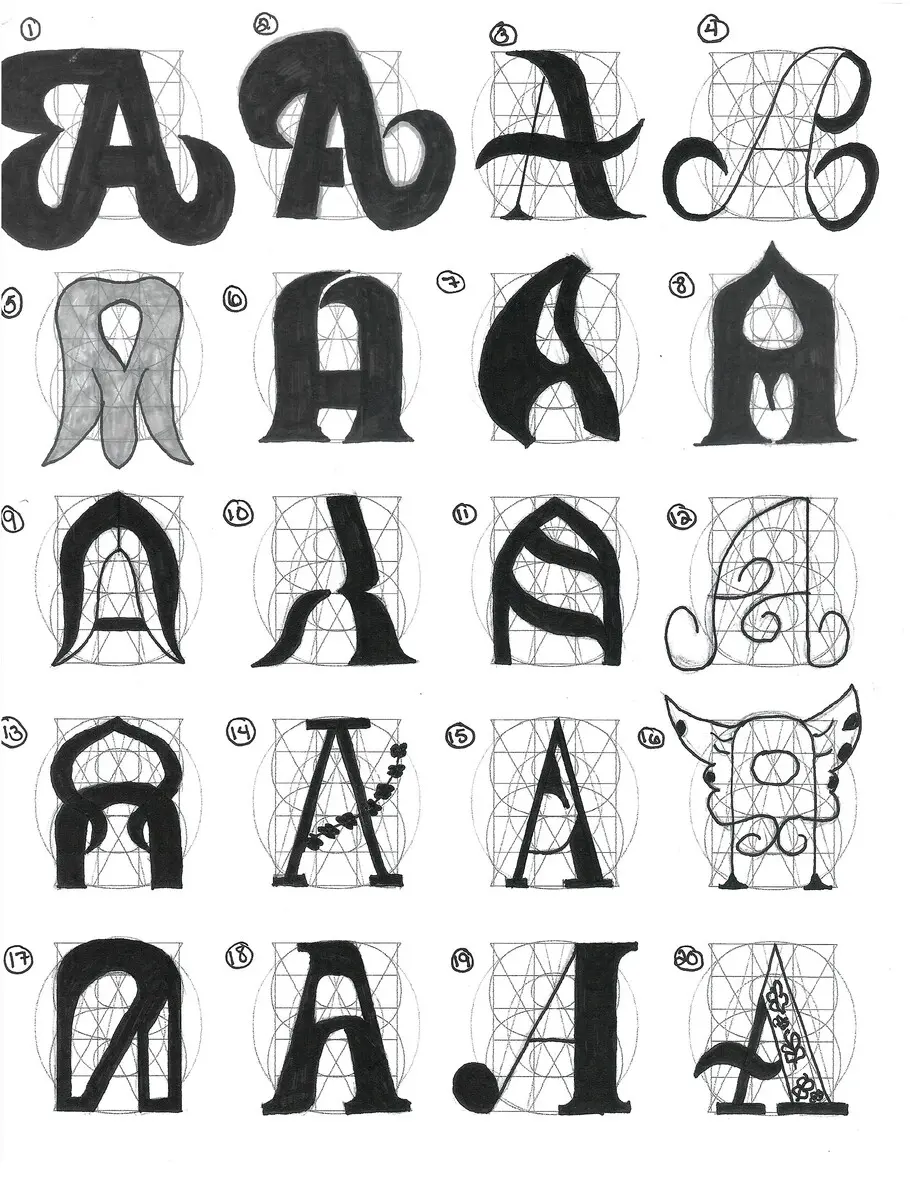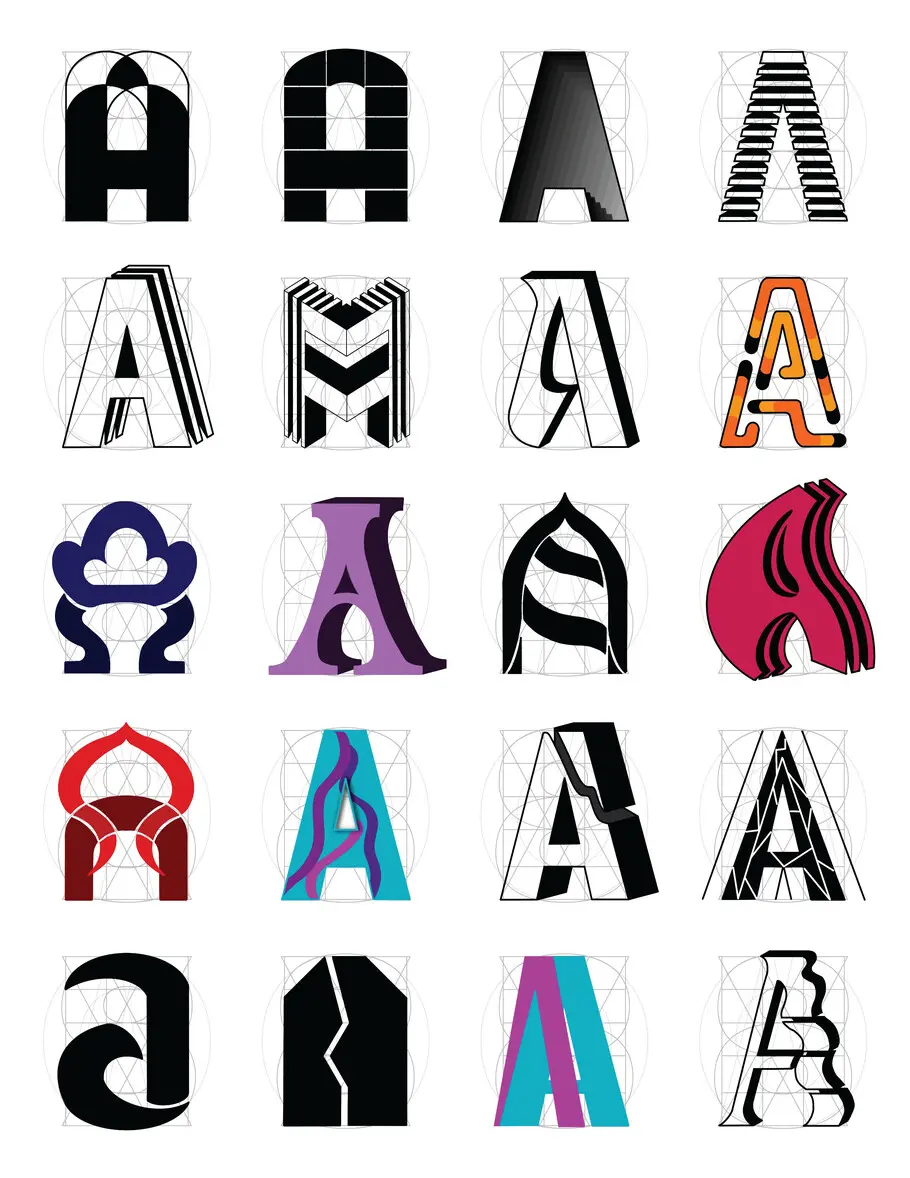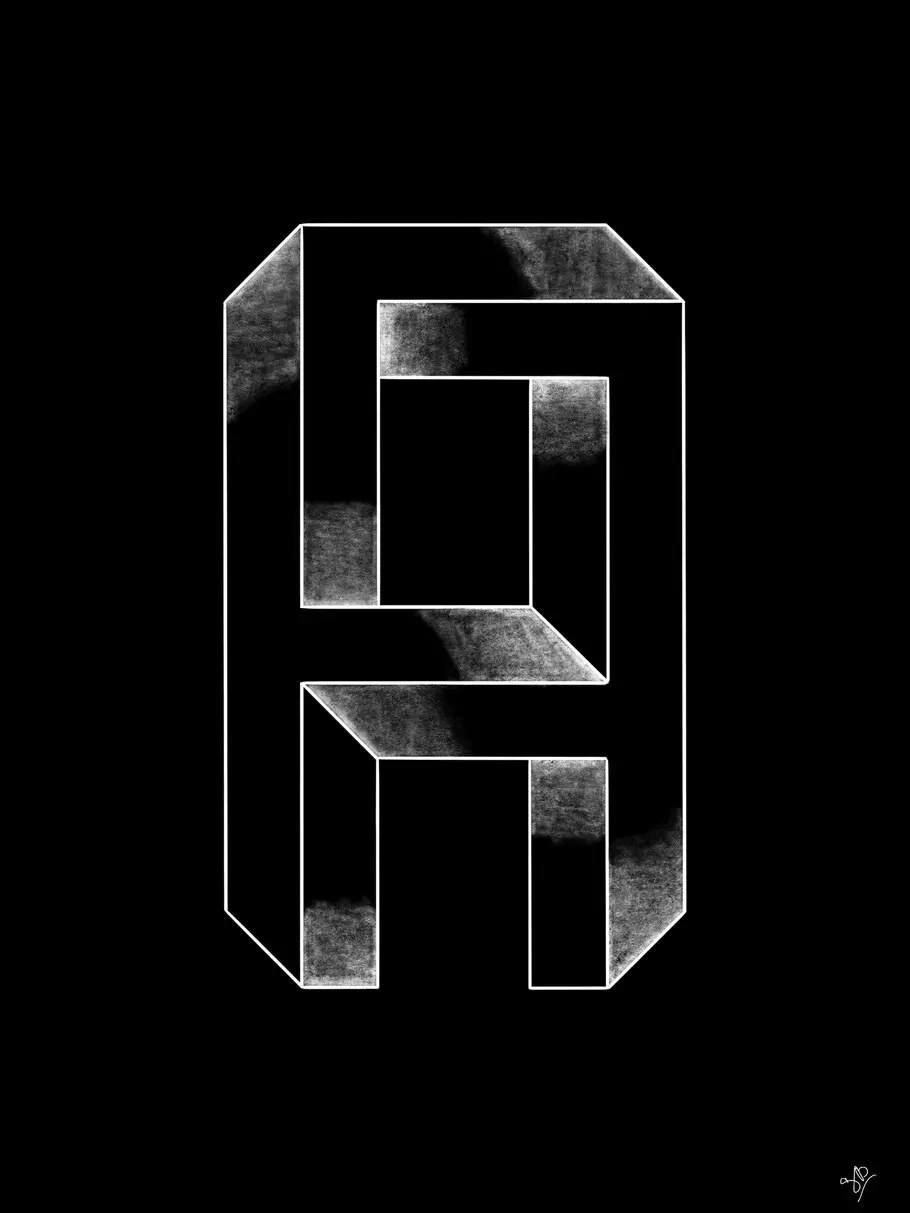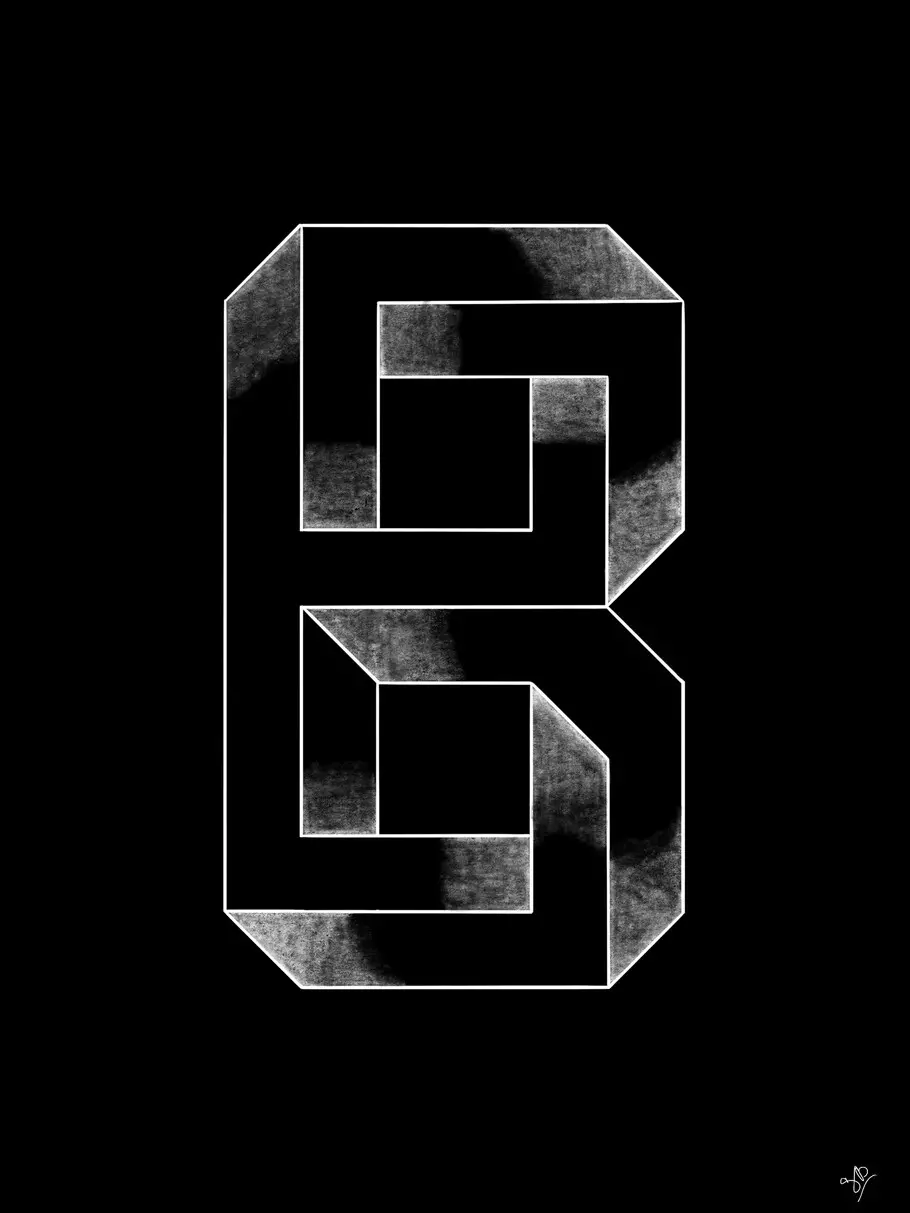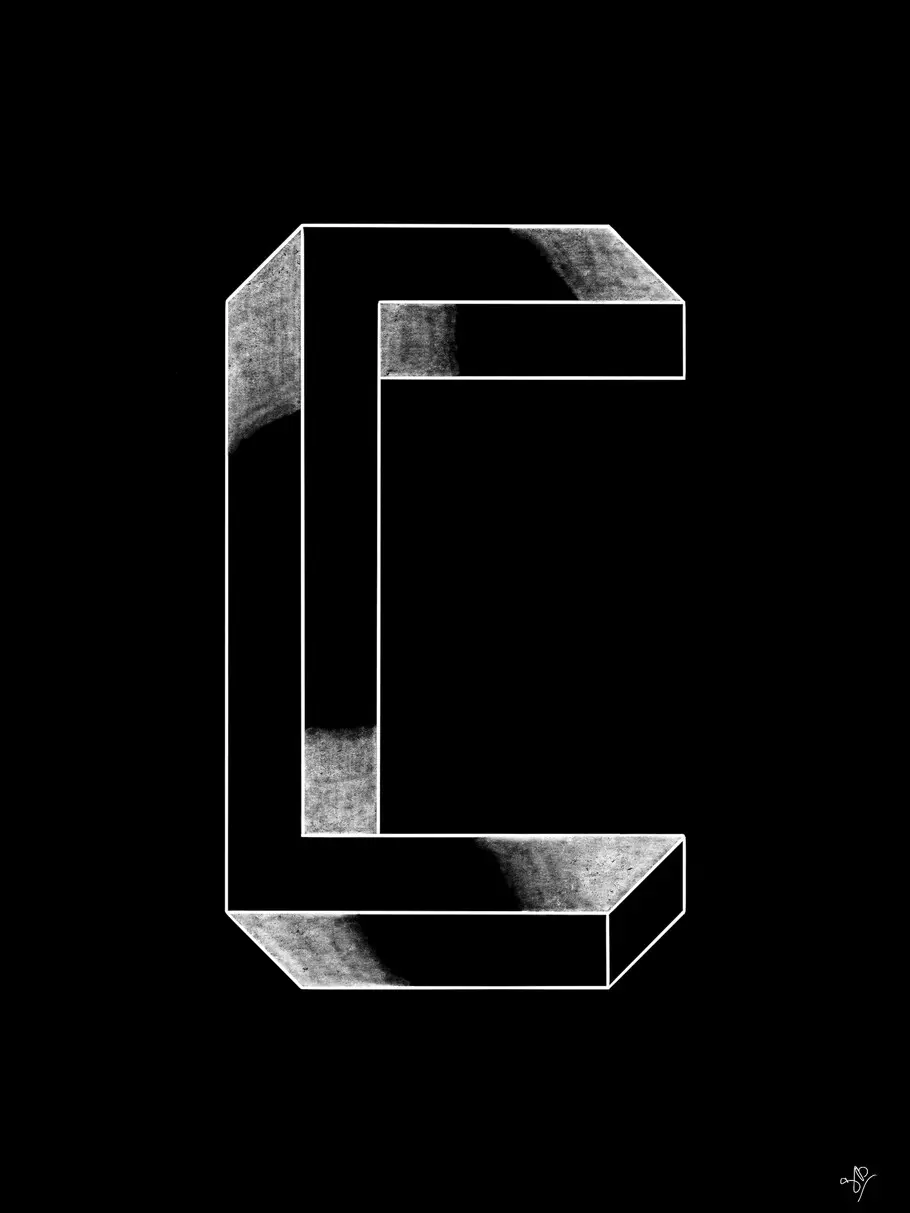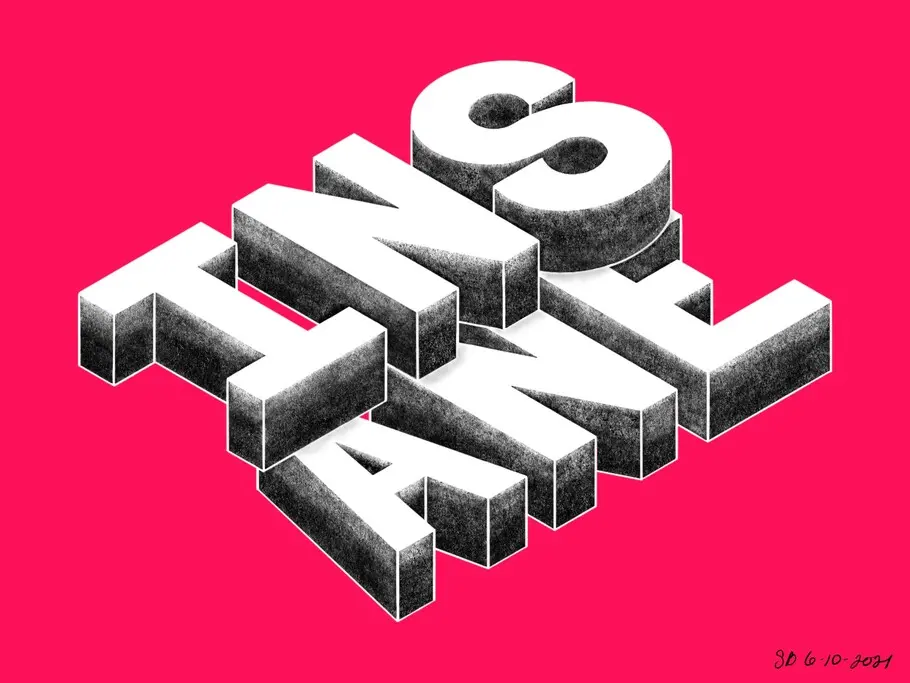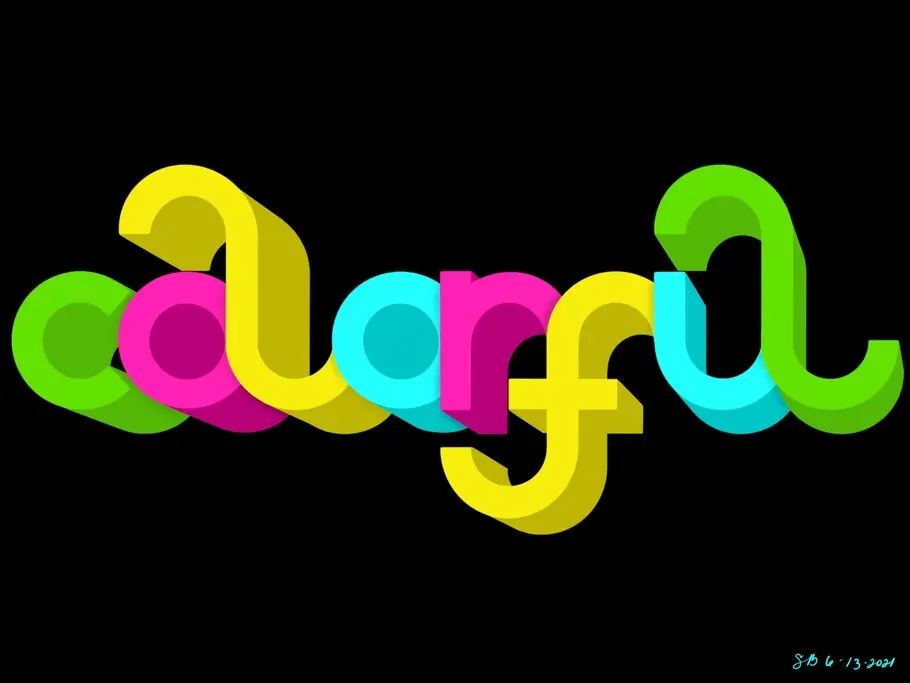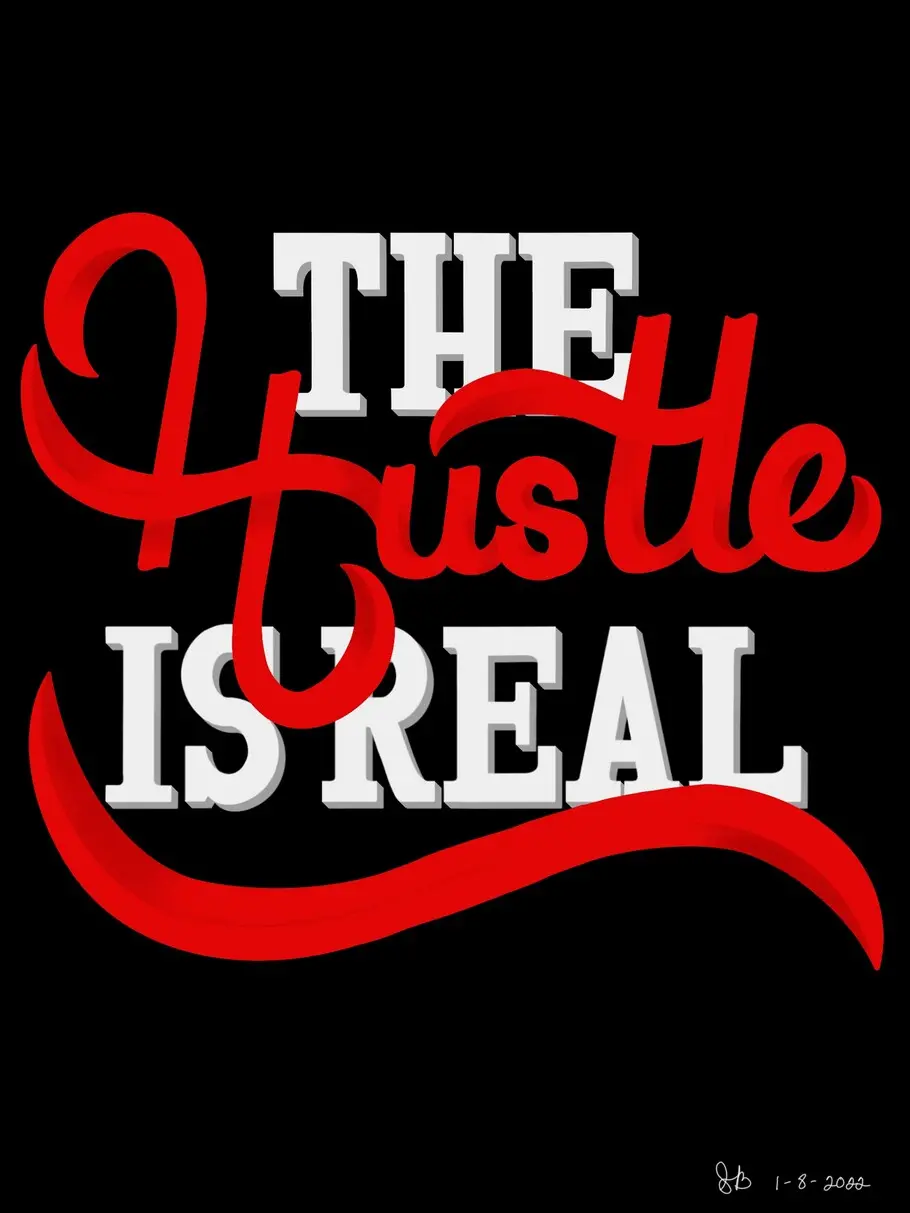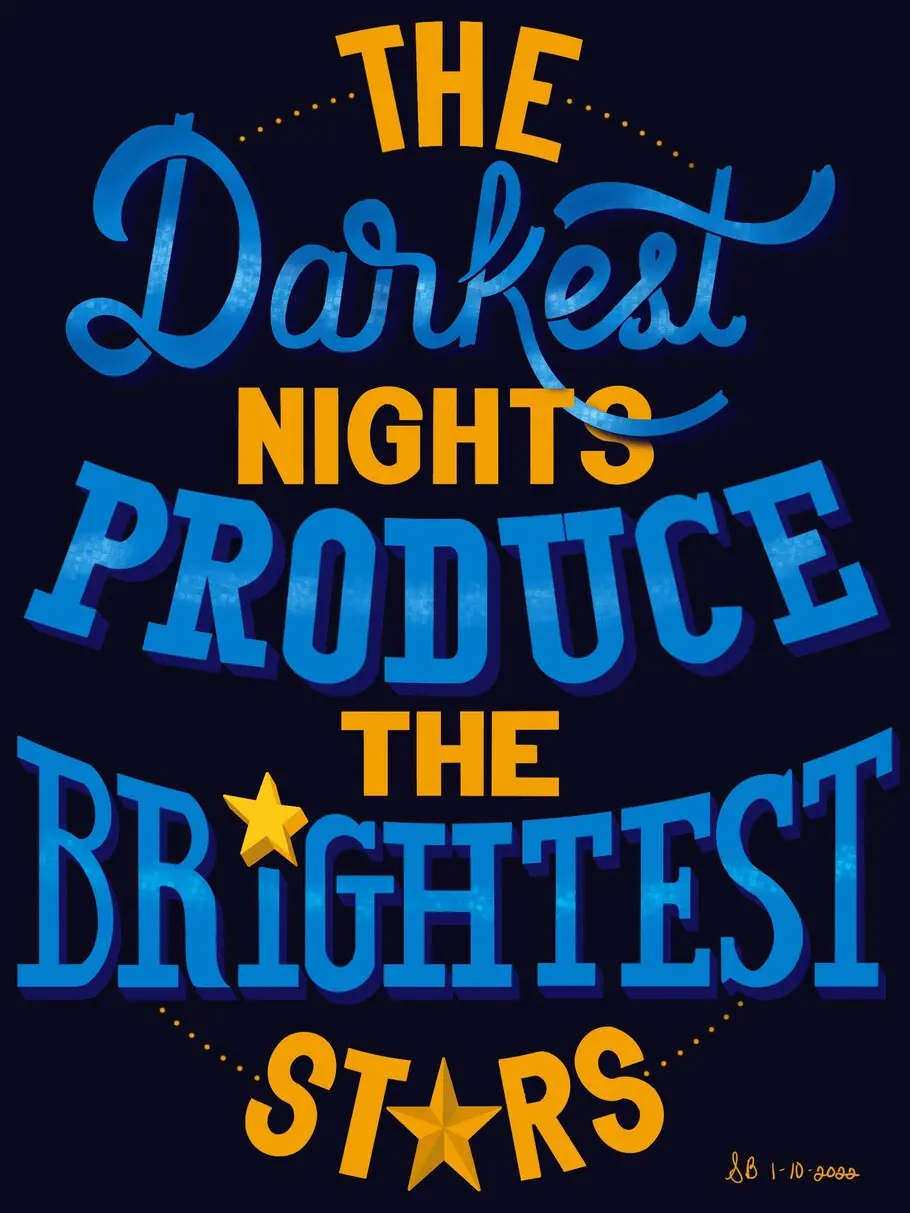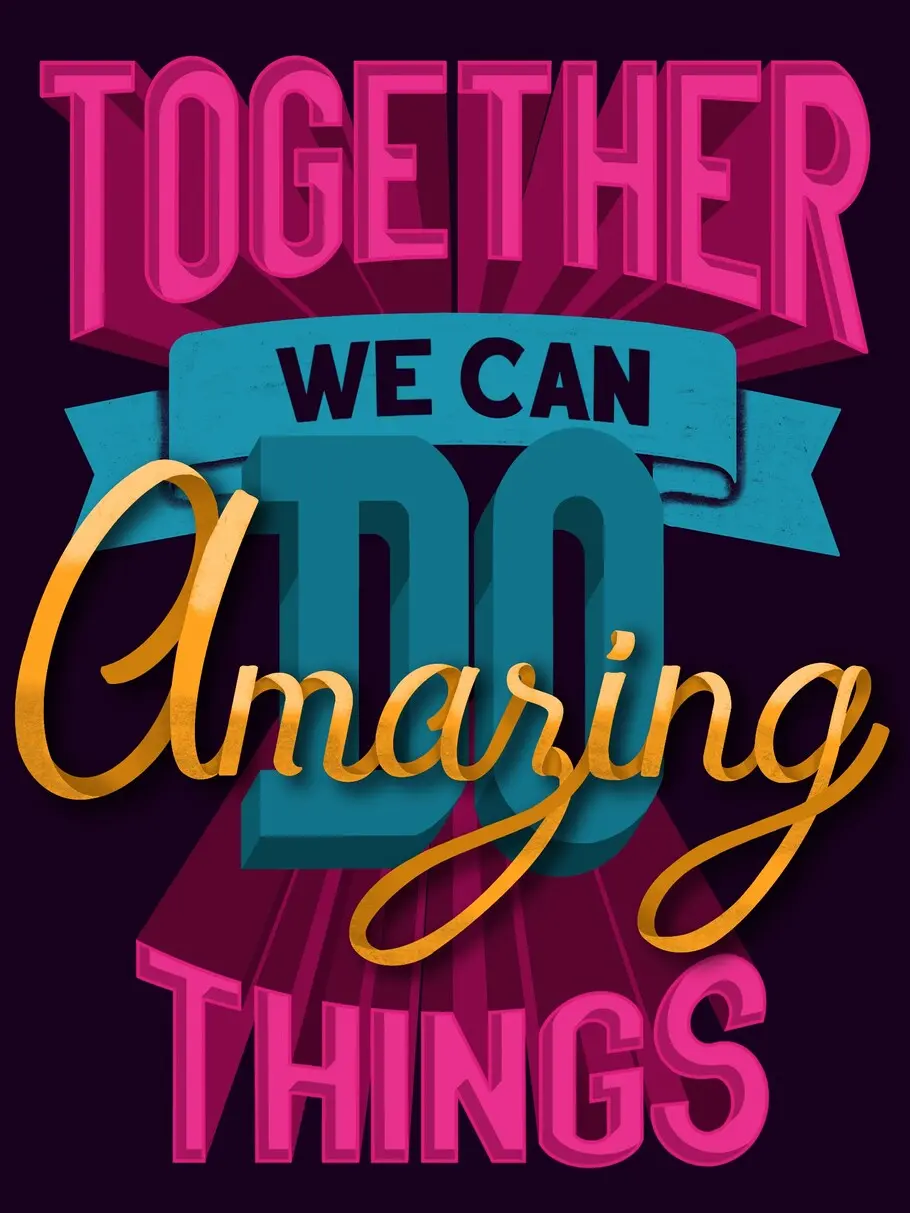
Meet the 2021 Adé Hogue Scholarship recipient: Sakinah Bell.
This award meant a lot to me. I’ve never entered any contests before the TDC. To get recognition for something that I create means the world to me.
Sakinah Bell.
Every year, Monotype and the Type Director’s Club (TDC) award the Adé Hogue Scholarship to an outstanding US-based BIPOC student entering the design industry. This prestigious scholarship, formerly called the “Superscript Scholarship” pays tribute to Broderick “Adé” Hogue, a Chicago-based art director and letterer who was tragically killed last October at the age of 32 while cycling in Chicago’s Near North Side.
We recently caught up with the 2021 winner, Sakinah Bell, a graphic designer studying at Mercy College in New York. We discussed how creative work has provided an outlet to improve her mental health as well as to process current events. Bell described her colorful, bold use of hand-drawn type, her senior thesis focused on metamorphosis, as well as the personal significance of winning the scholarship after overcoming some of life’s hardships.
What made you decide to study design—were you always interested in creative pursuits?
I loved to write when I was a kid. I would write fictional stories and poetry. Writing was my way of focusing my anger because I suffer from depression, so writing was cathartic for me. As technology advanced, I became more curious about how certain things were made.
How would you describe your design style?
I would say that my design style is vibrant and bold — I love to use a lot of color in my projects. I’ve become really good at using color. And I say “bold” because a lot of my projects are in-your-face with big, bold type.
How can we use design to be more inclusive? What do you think inclusivity means in branding?
The one thing that I noticed about design is that there are not a lot of people of color working in this field. When you’re learning about design, you’re learning about white men. Inclusivity means to be equal, so I feel a lot people might avoid the creative field because they feel that they might not be treated equally. Because in reality, sometimes people of color are not treated equally when it comes to certain things.
Can you share some of the real-world problems you’re particularly interested in tackling with design?
With all the violence happening right now, design has been helpful because I have an outlet to express my feelings. I try not to dwell on those events sometimes because it’s too sad.
What role do you think type can play in these kinds of projects?
A lot of things are going on in the world right now. War, racism, and pure violence. Type can play a role in these problems by bringing awareness. Type can answer some questions that people might have. Type can show the world that you are not alone.
What types of projects are you working on lately?
The main project I’ve been working on lately is my senior thesis. My senior project is about self-transformation using the butterfly as a symbol of metamorphosis. So, I’ve worked on a few different typefaces using the butterfly as inspiration.
How did you hear about the Superscript/Adé Hogue scholarship?
Bobby C. Martin gave a talk for my class in 2020 and encouraged the whole class to apply for the scholarship.
What do you think made you stand out as a winner for the scholarship?
I believe what made me stand out for the scholarship was my type process. All of my typography is hand drawn. One of the things that Bobby mentioned was that he loved seeing hand-drawn type. Another thing I think that made me stand out was my essay. I didn’t write what I thought somebody wanted to read, I wrote an essay about my life and the struggles I’ve been through that influenced where I am today.
What does the award mean to you personally?
This award meant a lot to me. To get recognition for something that I create means the world to me. I’ve never entered any contests before the TDC. I always felt that I wasn’t good enough. But winning the award over all of the applicants made me realize that I can hang with the big boys.